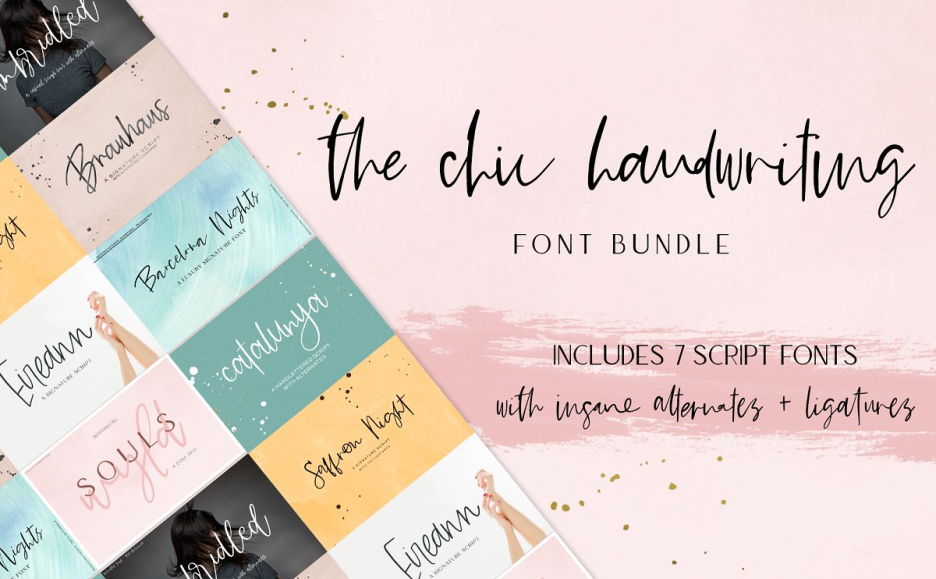
The Chic Handwriting Font Bundle
The Chic Handwriting Font Bundle offers a collection of elegant and stylish handwriting fonts, perfect for adding a personal touch to your projects. With a variety of styles and weights, this bundle caters to diverse design needs, whether for branding, logos, or digital content.
• Multiple font styles and weights
• Unique and creative designs
• Easy to read and aesthetically pleasing
• Styles: Script, Handwritten
• Ideal for invitations, greeting cards, and personal branding
• Use for web design, social media graphics, and print materials
• Combine with other design elements for a cohesive look